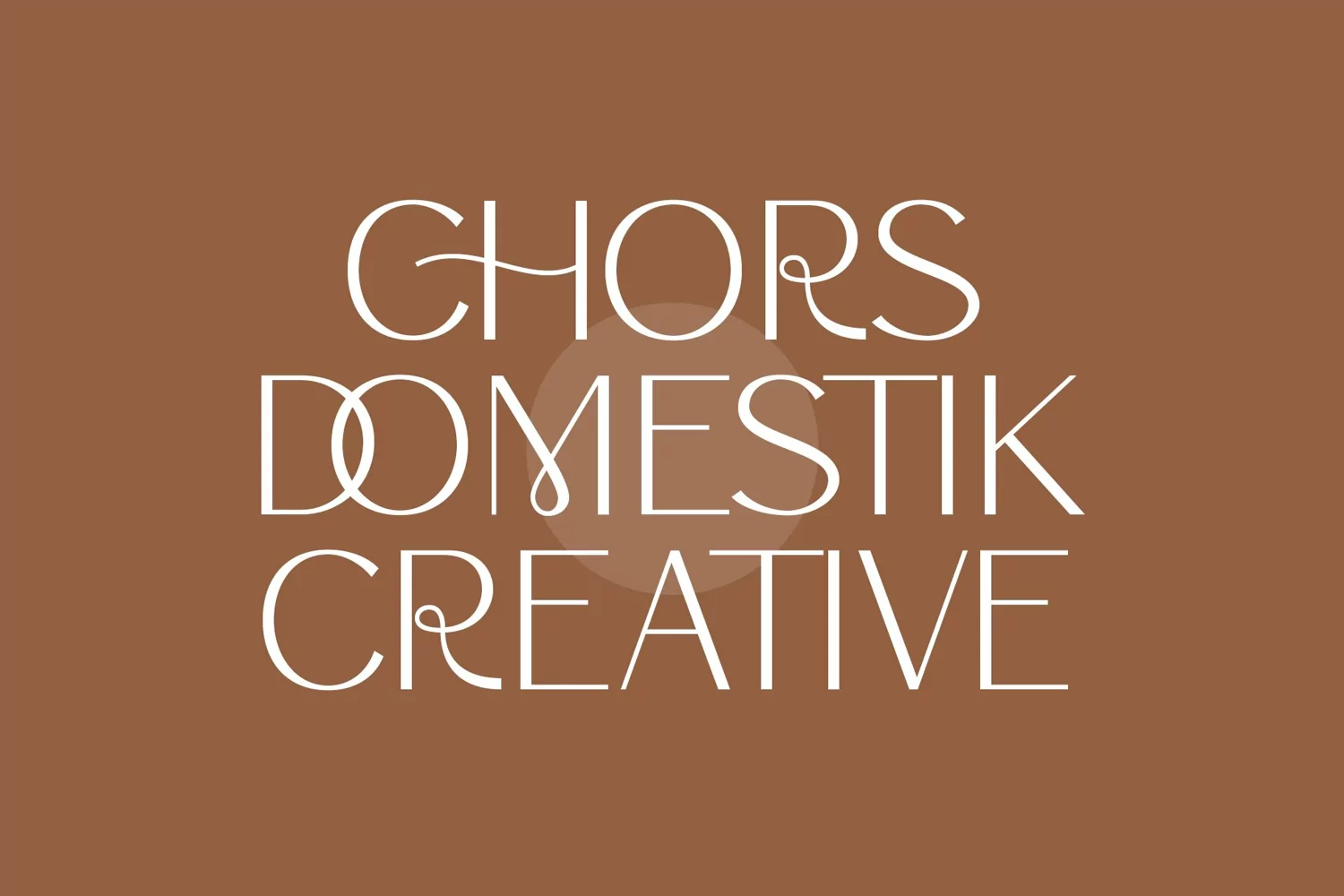
Mollen is a modern-style sans typeface with alternatives and ligatures that create stunning logos, quotes, magazine imagery, wedding invitations, posts, blog posts, branding projects and much more.